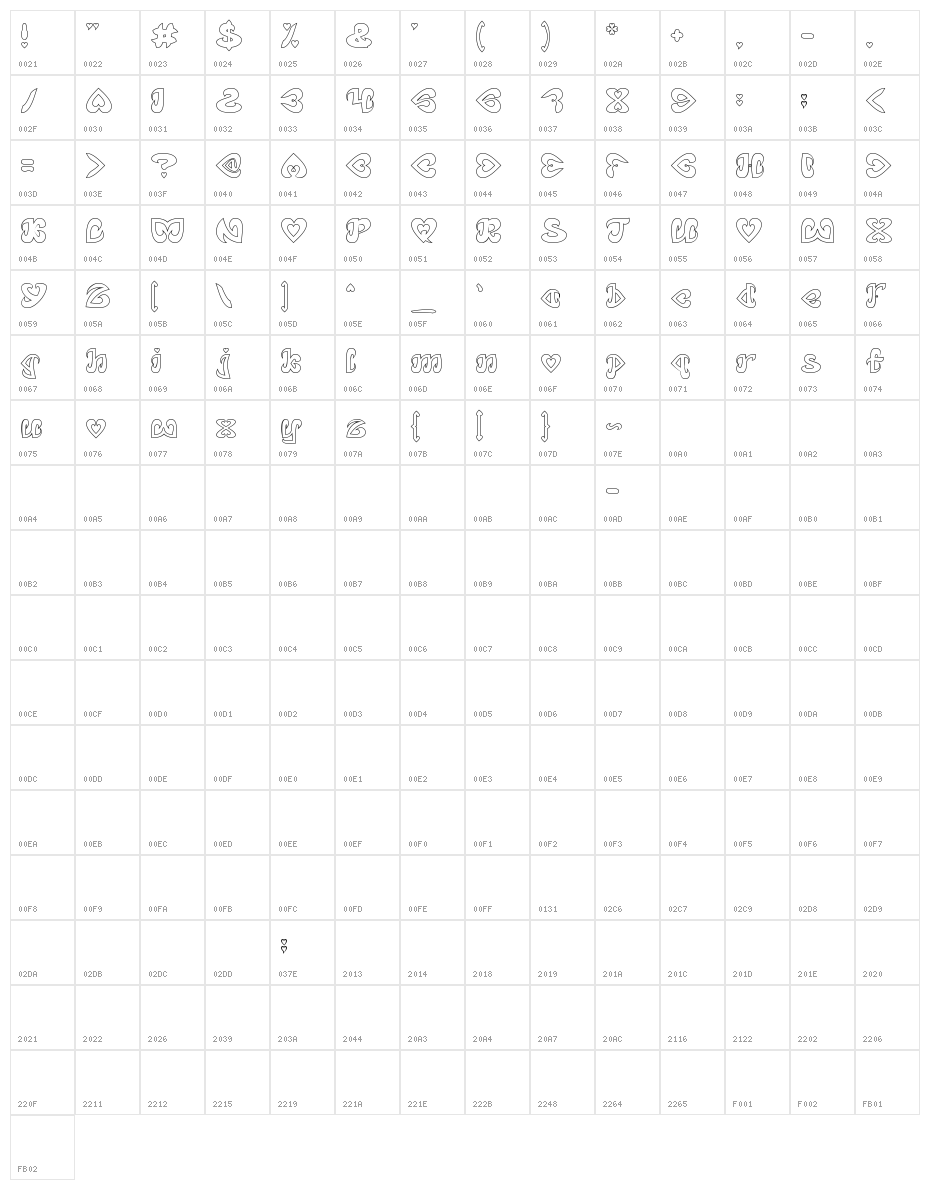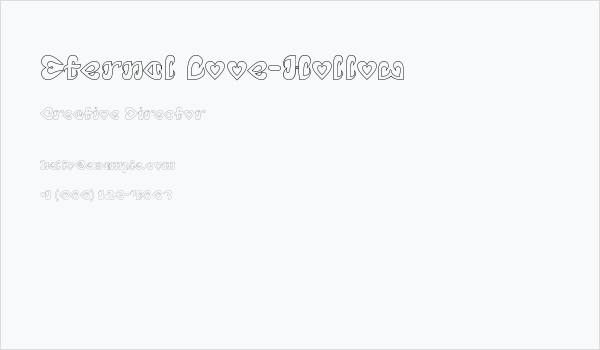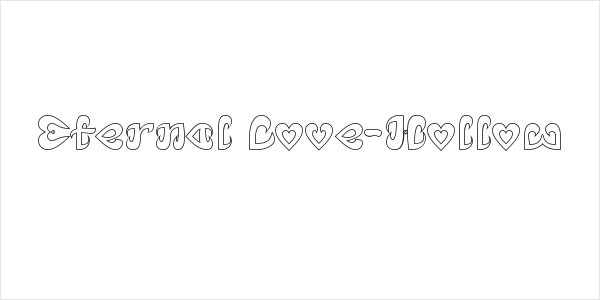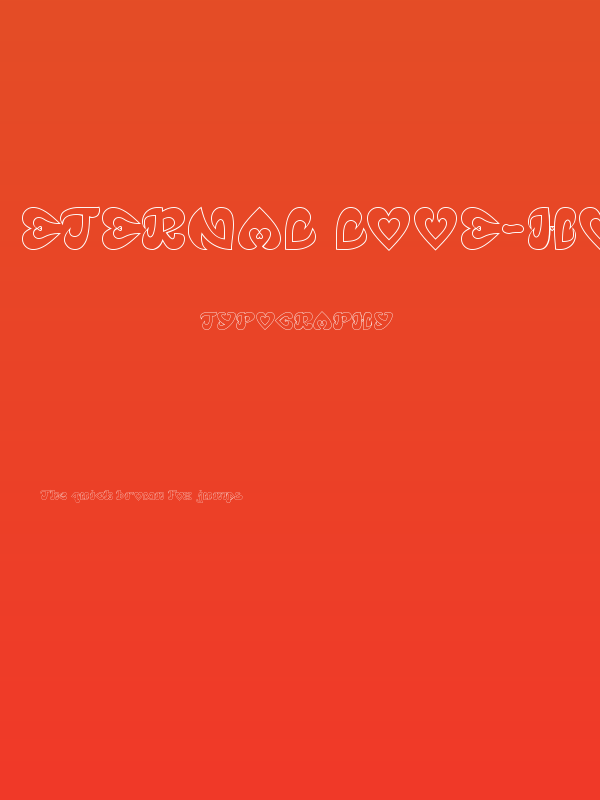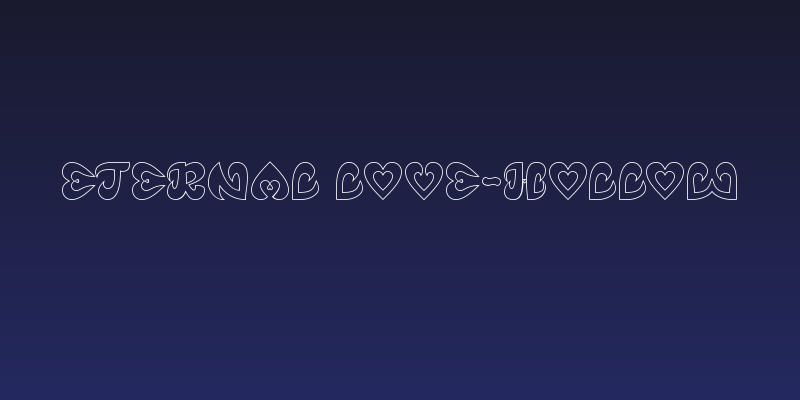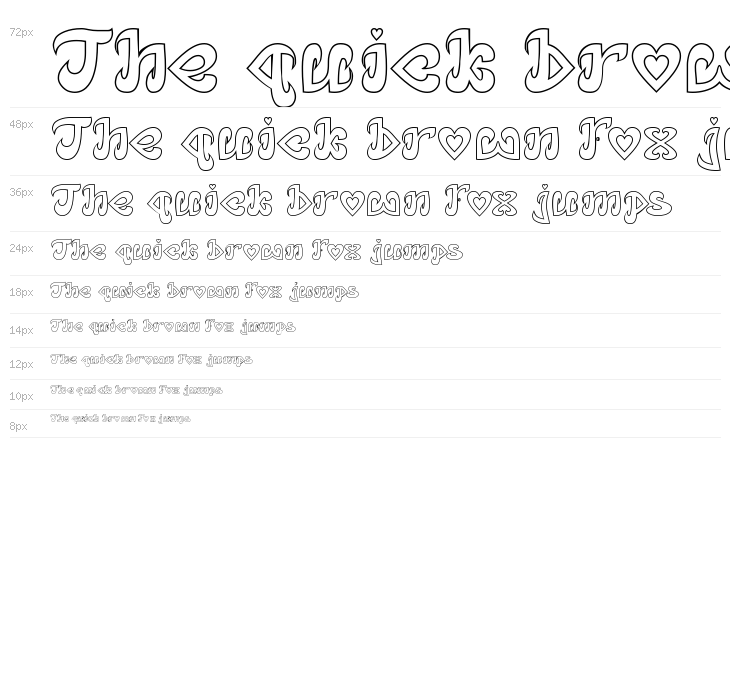
Eternal Love-Hollow Font
Eternal Love-Hollow Description
This font features a playful and romantic design, with each character incorporating heart shapes and hollow outlines. The letters are bold and decorative, making them stand out with a unique charm. The uppercase and lowercase letters maintain a consistent style, with the heart motif present throughout. Numbers and special characters are also designed with the same thematic elements, ensuring a cohesive look. This font is perfect for projects that require a touch of love and creativity, such as wedding invitations, Valentine's Day cards, or romantic-themed branding.
Use CaseHeadlines, Logos, Invitations
Proposed ProjectsIdeal for wedding invitations, Valentine's Day cards, romantic branding, and playful designs.